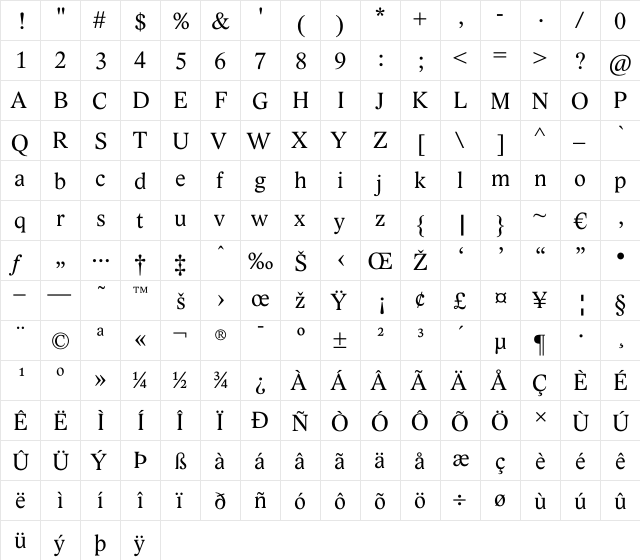
Lido STF CE Regular
Design Context for Lido STF CE Typeface
Lido STF CE is a composed and adaptable typeface that performs quietly and consistently across a wide range of design contexts.
Pro Tip: Use Lido STF CE in both headline and body roles to test its range before committing to a single application.